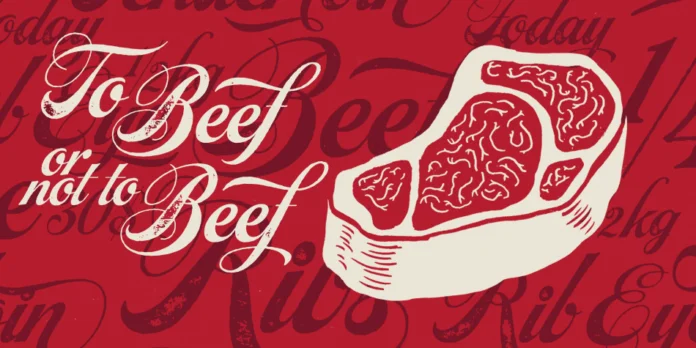
Steak Font Family is perfect for steakhouse restaurant branding, barbecue grill signage, premium meat packaging, rustic butcher shop logos, hearty food advertising, masculine dining establishments, robust cooking shows, meaty product labels, carnivore-focused marketing, and bold culinary experience promotions.
Steak Font Family is exciting because it embodies the robust satisfaction and hearty appeal of premium grilled cuisine through bold, meaty letterforms that convey strength, flavor, and culinary excellence with masculine confidence. This robustly designed typeface combines steakhouse tradition with contemporary functionality, making it perfect for food brands that want to communicate quality meat, satisfying dining experiences, and authentic carnivorous appeal that satisfies the most demanding appetites.
The Steak Font Family includes heavy weights with meat-inspired character styling, featuring grilled design elements and hearty decorative variations. The font showcases steakhouse design details, meat-optimized proportions, and robust character characteristics that create a comprehensive typographic system for food and masculine dining brand applications.
Steak Font Family Free Download provides designers with access to premium culinary typography that brings authentic steakhouse character to contemporary food industry design projects. This expertly crafted typeface has been developed to capture the satisfying appeal and premium quality of fine steakhouse dining while ensuring optimal performance in food marketing applications. The font's robust character and culinary appeal make it ideal for meat-focused restaurants and masculine dining brands.
The culinary sophistication of Steak Font Family makes it an invaluable tool for steakhouses, barbecue restaurants, and meat-focused food companies that need typography capable of communicating quality cuisine and satisfying dining experiences. The font's hearty character helps establish immediate associations with premium meat quality, masculine dining atmosphere, and authentic carnivorous satisfaction that appeals to meat lovers seeking exceptional dining experiences.
Steakhouses, barbecue joints, and premium meat retailers consistently choose Steak Font Family for its ability to convey culinary strength and steakhouse sophistication through typography. The font excels in applications where establishing food quality credibility and masculine appeal are essential to brand positioning, making it particularly effective for meat restaurants, grilling equipment, and carnivore-focused food brands targeting meat-loving consumers.
This font's comprehensive character set includes meat-inspired letterforms, hearty numerals, robust punctuation marks, and culinary symbols that support authentic steakhouse typography composition. The consistent hearty styling maintains the premium meat theme throughout all characters while ensuring professional readability across all food and culinary design projects requiring Steak Font Family Free Download functionality.